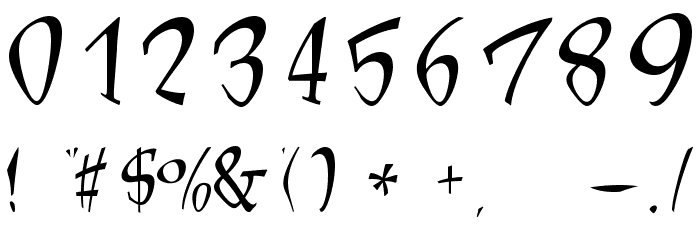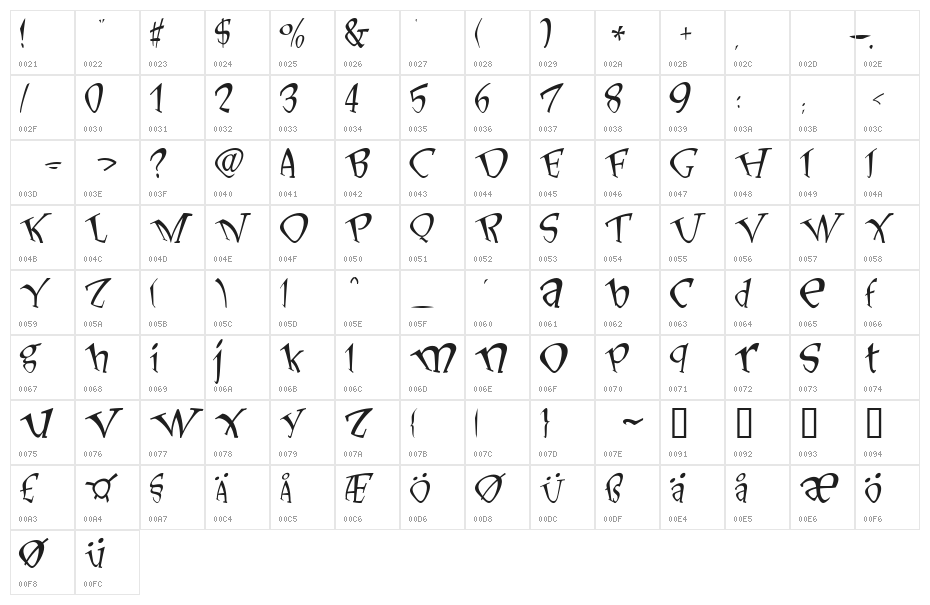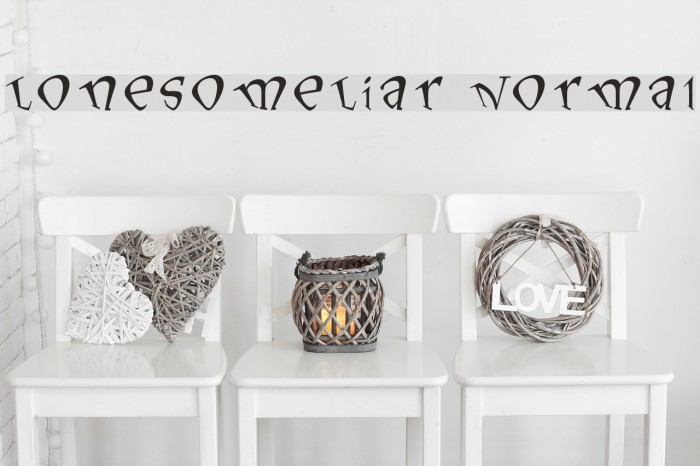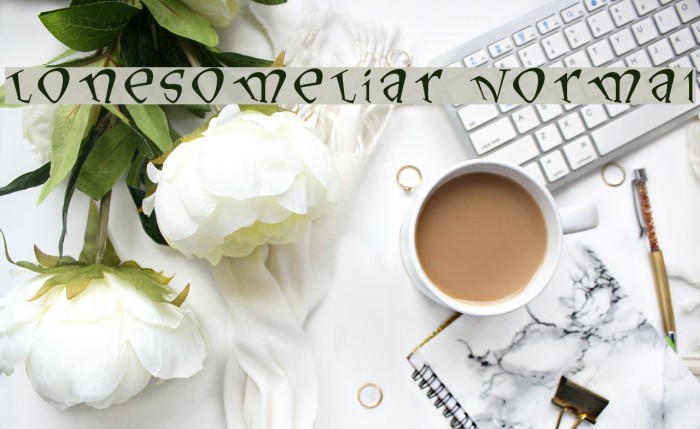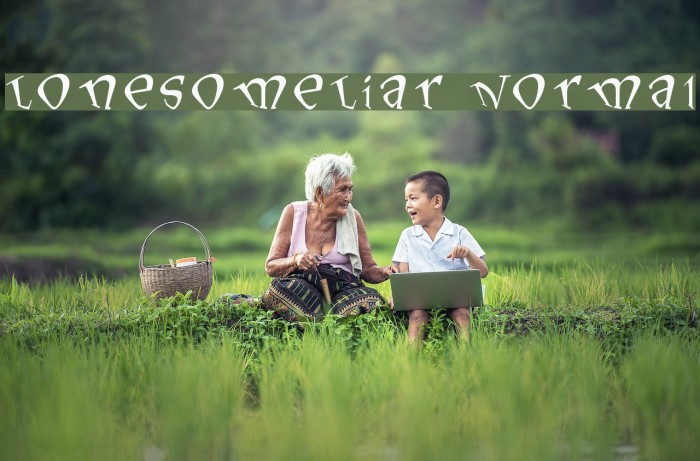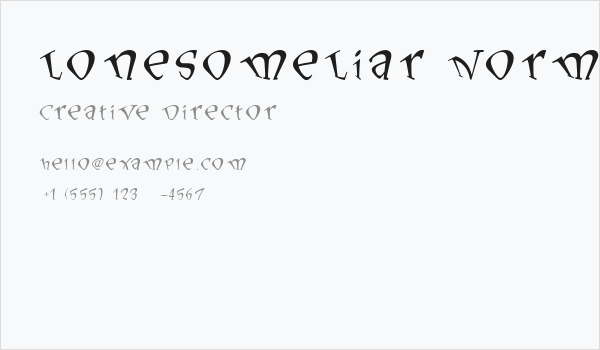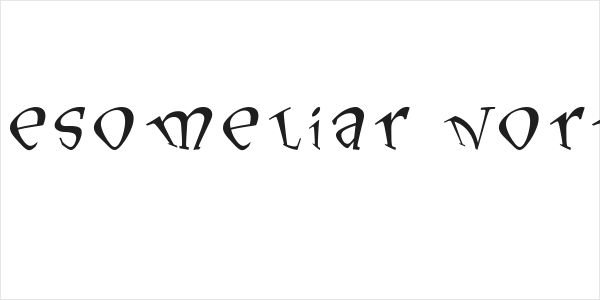
LonesomeLiar Normal Font
LonesomeLiar Normal Description
This font features a whimsical and slightly gothic style, characterized by its irregular, playful curves and sharp edges. The uppercase letters have a distinct, exaggerated flair with varying stroke widths that give them a dynamic and somewhat mysterious appearance. The lowercase letters maintain this quirky style, with some characters having unique, unexpected twists. Numbers and special characters follow the same design ethos, adding to the font's overall eccentric and artistic vibe. This font's unique style makes it stand out, making it suitable for creative and unconventional design projects.